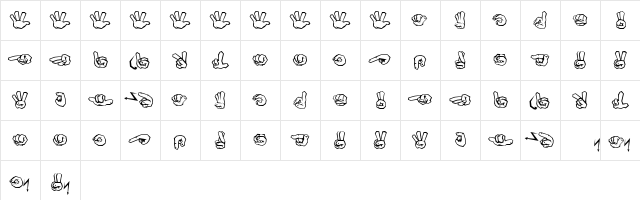
zoefingerabc graffiti Regular
| Designer | Tanja Schulz - ZOE - |
Design Context for zoefingerabc graffiti Typeface
zoefingerabc graffiti is a composed and adaptable typeface that performs quietly and consistently across a wide range of design contexts.